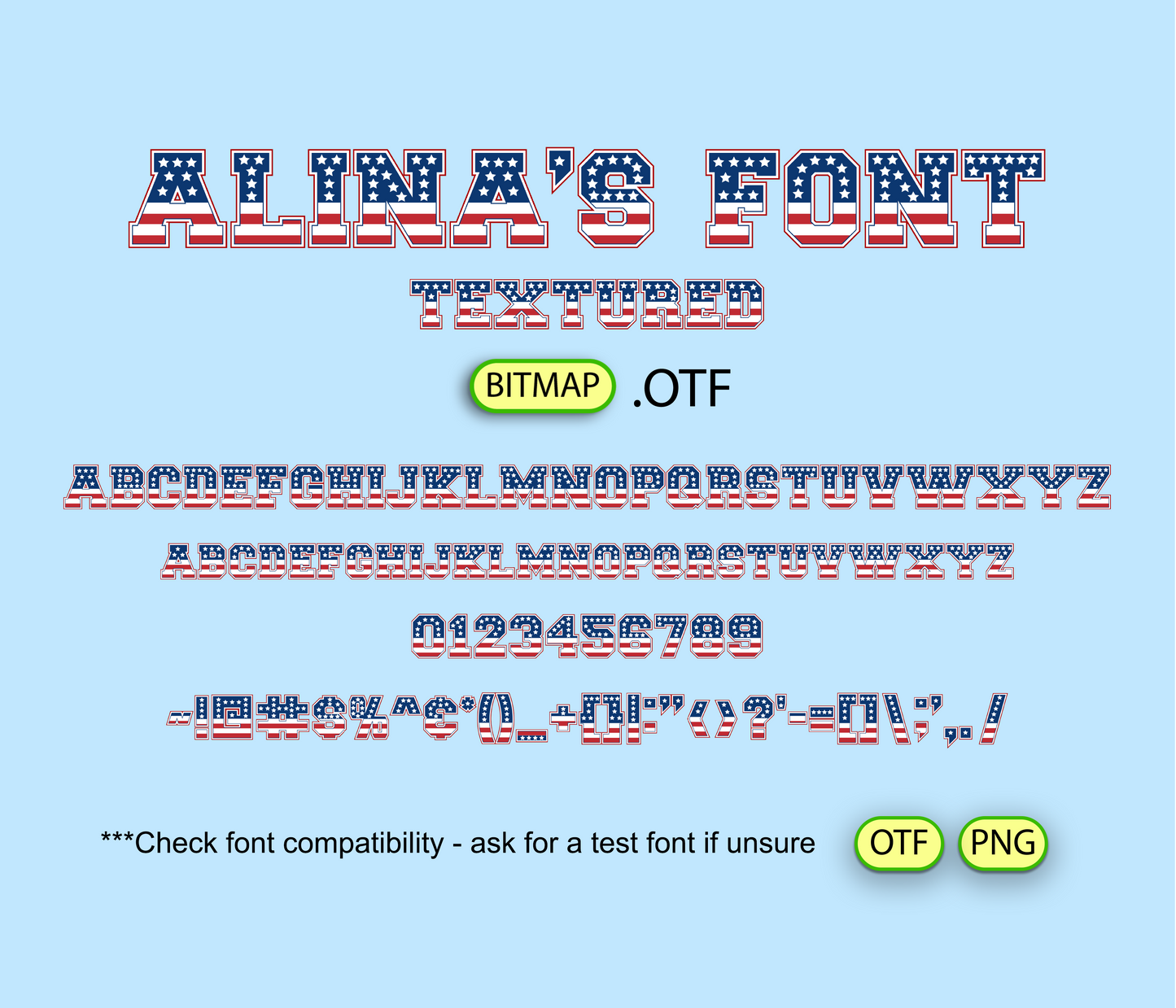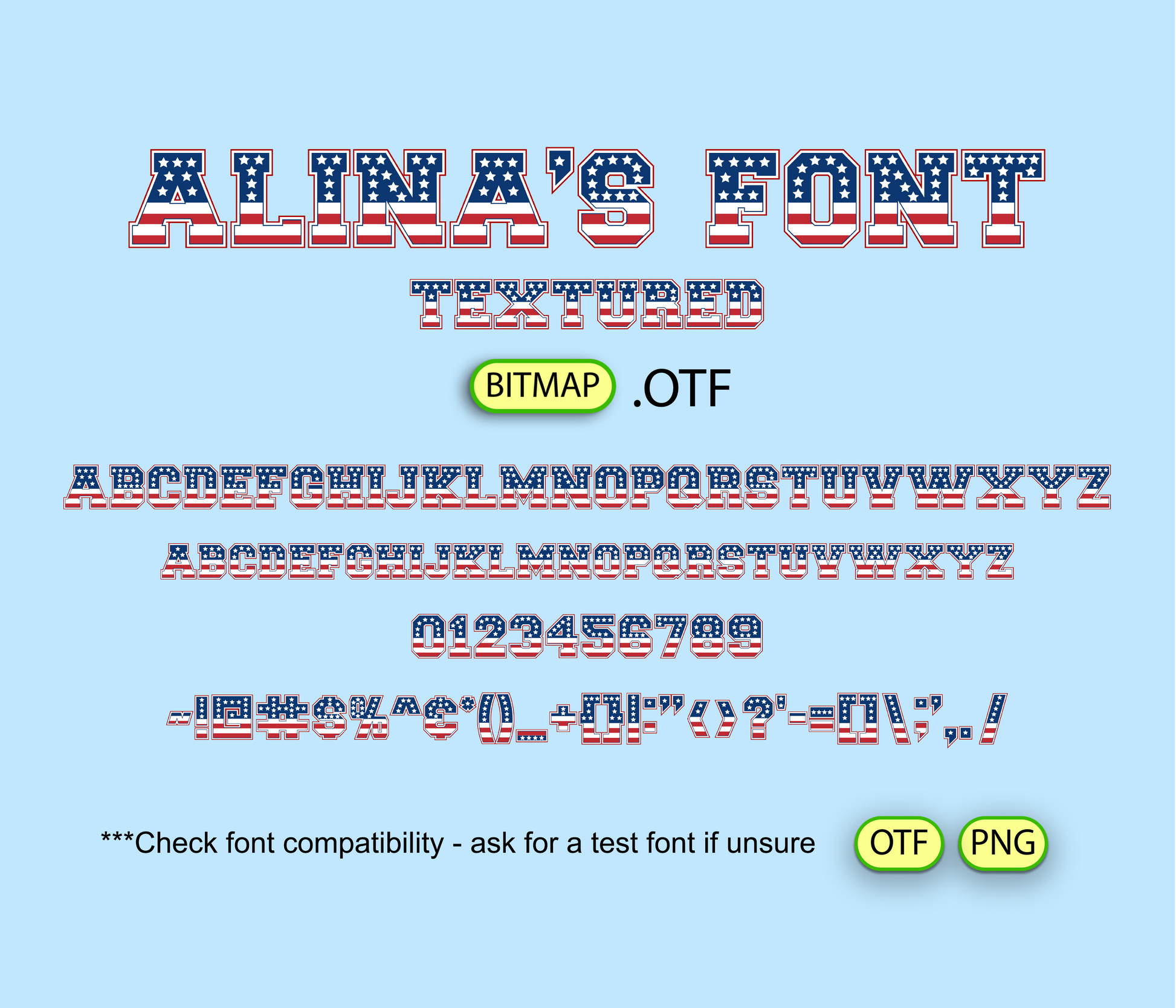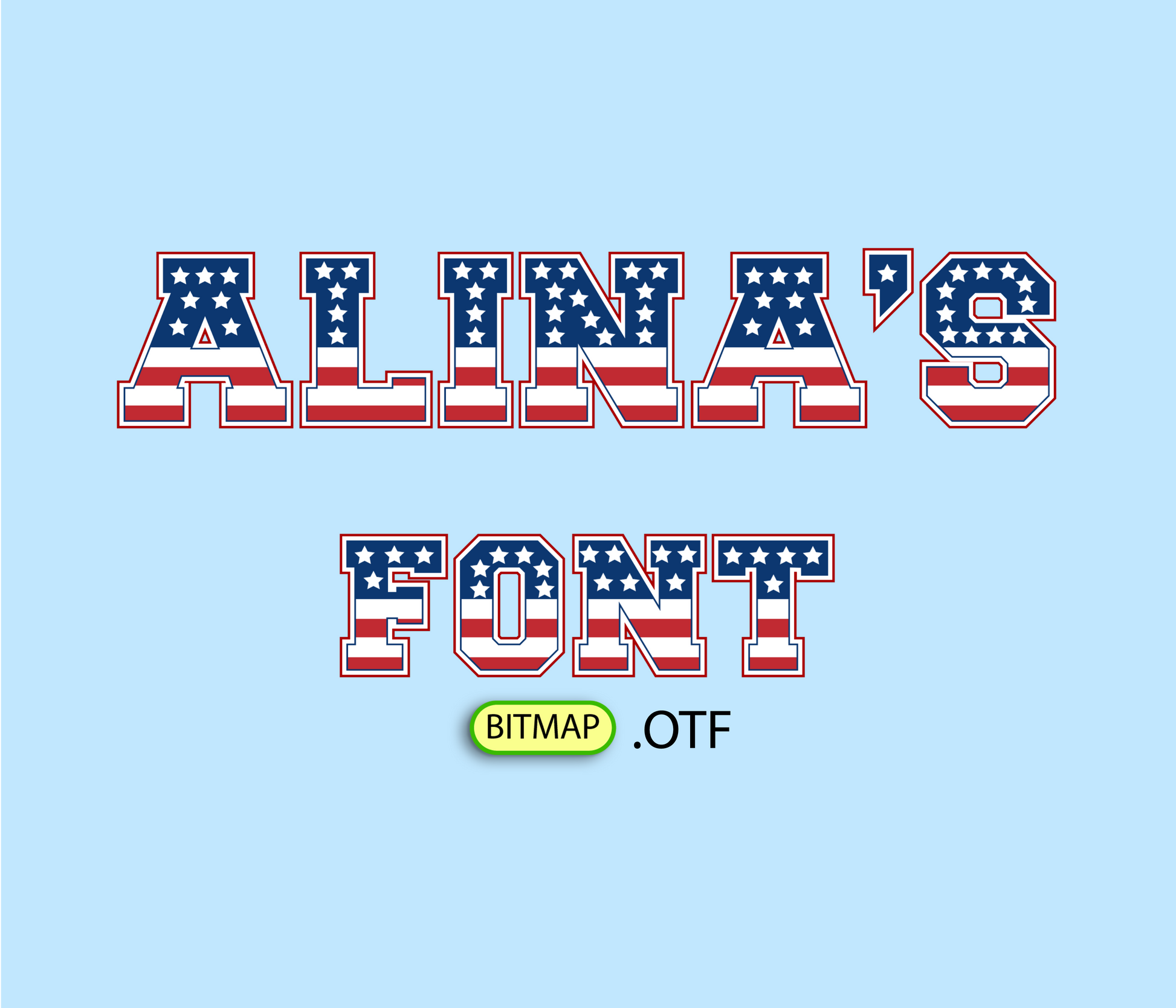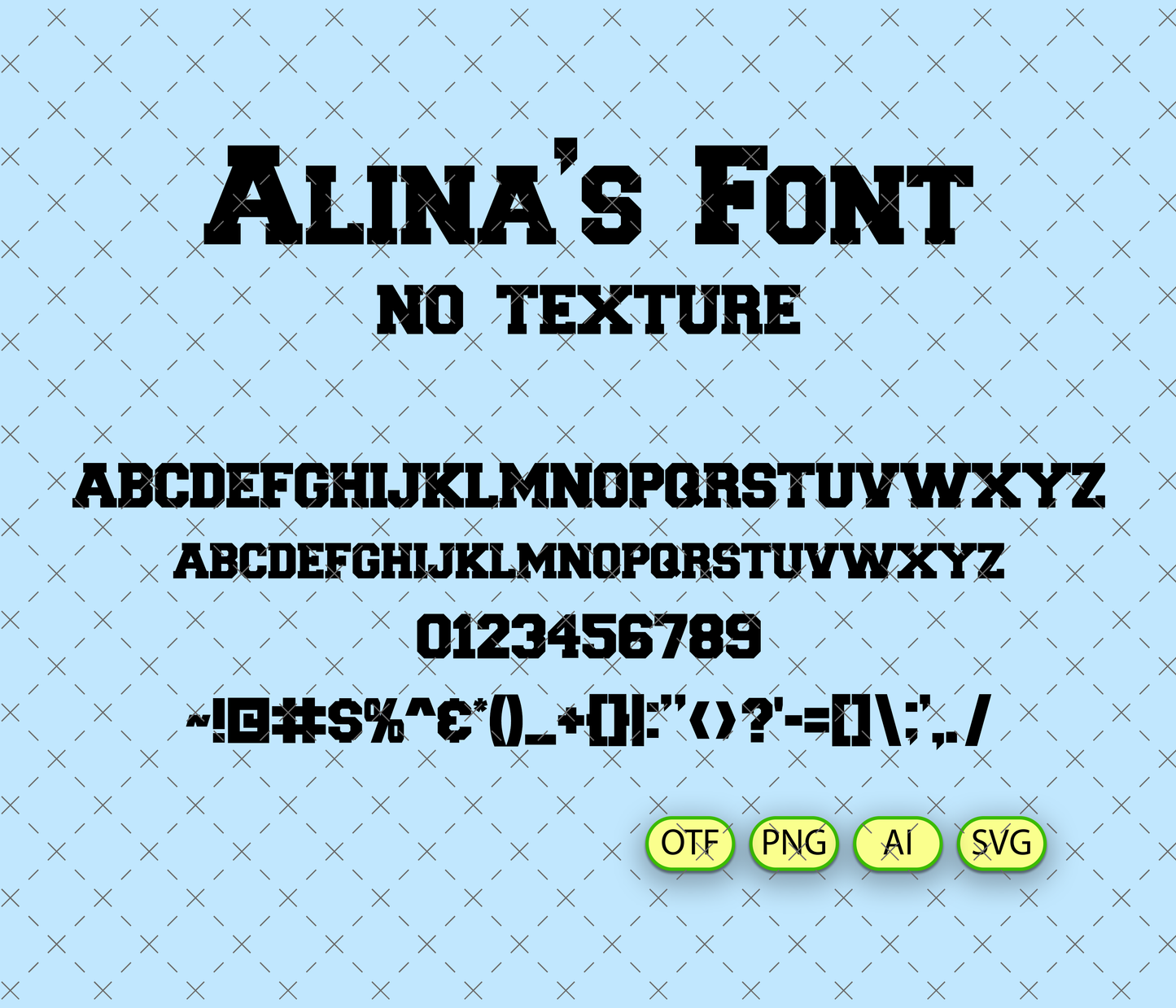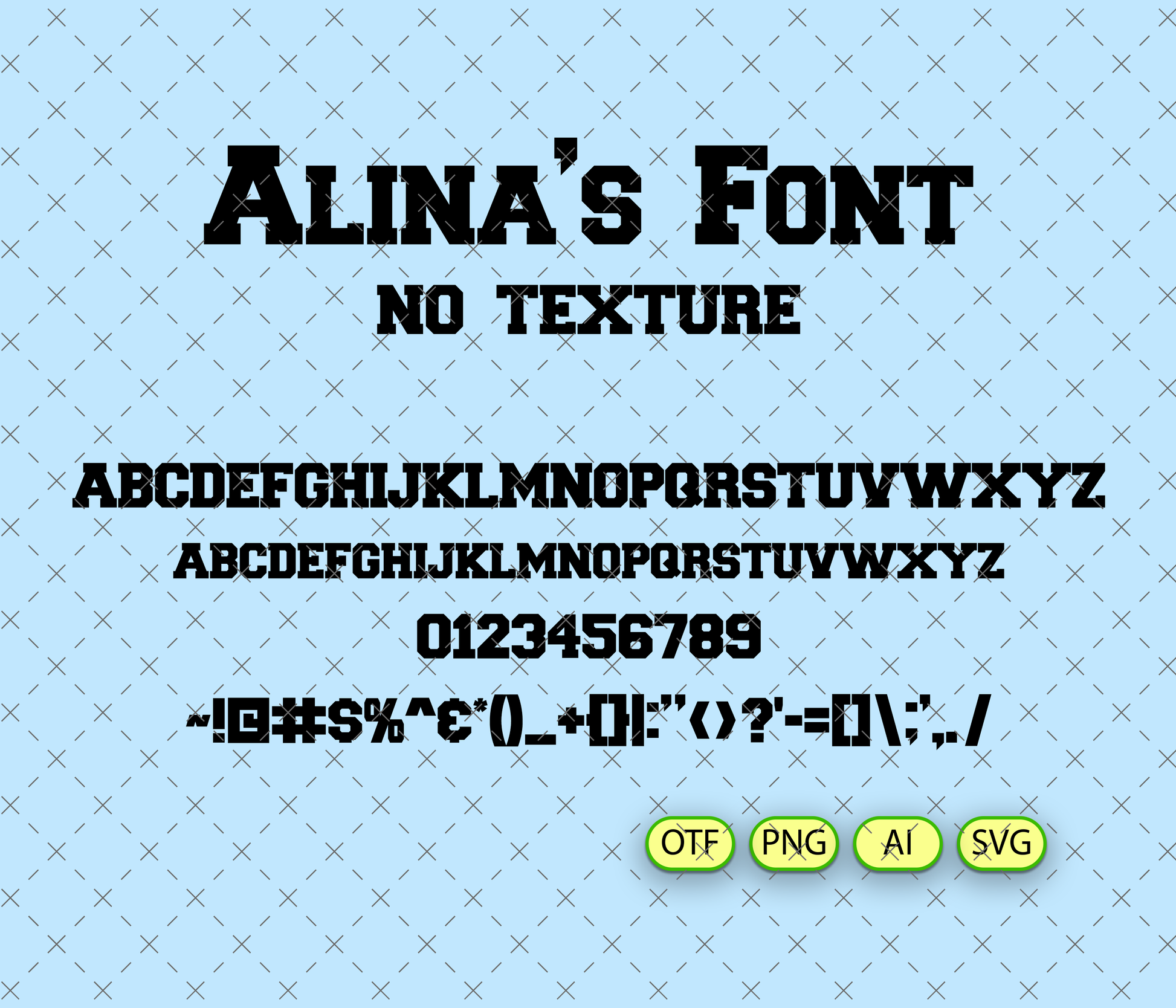
Varsity Patriot Font Textured
Step into the bold spirit of flag-emblazoned team pride and collegiate-style patriotic strength with our Varsity Patriot Font Textured, capturing the essence of star-spangled letterman heritage and legendary national pride athletic narratives. Perfect for Independence Day celebration planners, patriotic sports event coordinators, school spirit designers, and bold design specialists, this font brings the strong, flag-filled character of beloved varsity patriotic narratives to your projects. Create commanding invitations, commercial goods, or web content with the powerful presence of flag-emblazoned team spirit storytelling.
Bold Typography for Independence Day & Patriotic Varsity Spirit Projects
Our Varsity Patriot Font Textured features strong, collegiate-style block letterforms filled with star-spangled and striped flag textures reflecting the world of legendary letterman pride and iconic national team spirit heritage.
Our font pays tribute to the world of flag-emblazoned wonder and generation-spanning national team spirit culture, empowering your projects with its strong and commanding block character. Whether crafting Independence Day materials, designing varsity products, or adding a letterman touch to personal projects, this font communicates the bold essence of patriotic team spirit magic. Ready to charge powerful pride into your creations? This font is your key to attention-grabbing, impactful design.